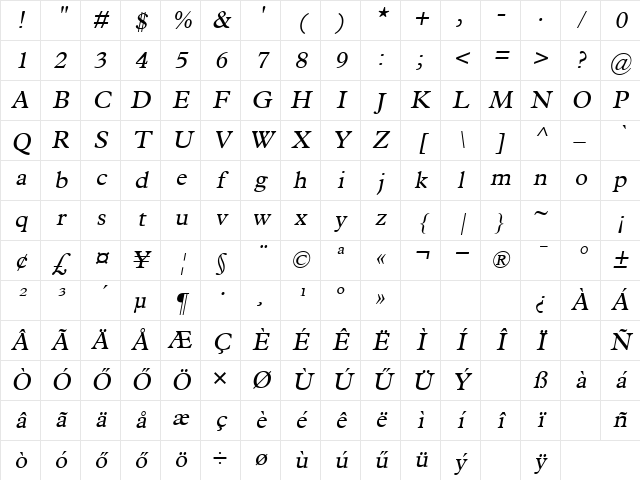
Complete Huni_Perfect Oblique Regular glyph index. Displaying only characters natively supported by Huni_Perfect Oblique Regular font.
Huni_Perfect Oblique is a composed and adaptable typeface that performs quietly and consistently across a wide range of design contexts. The slanted form adds forward momentum and visual energy.